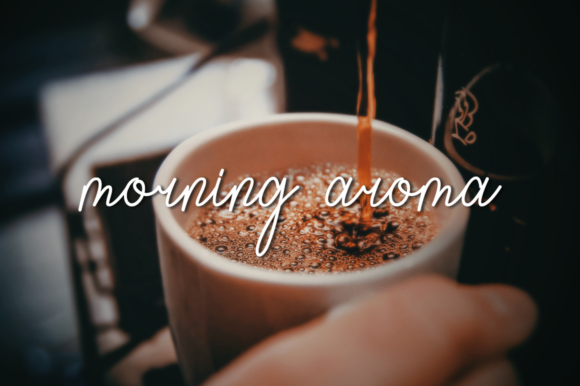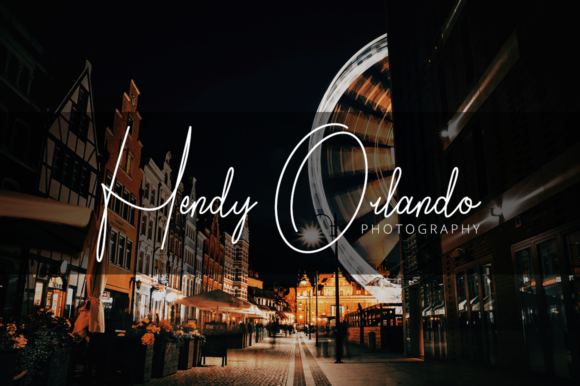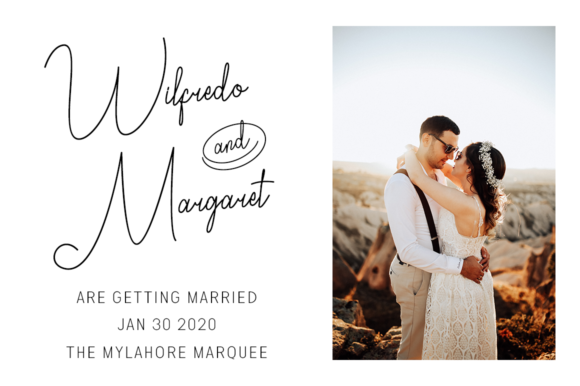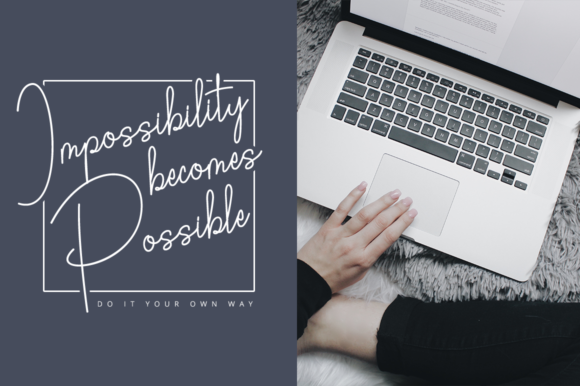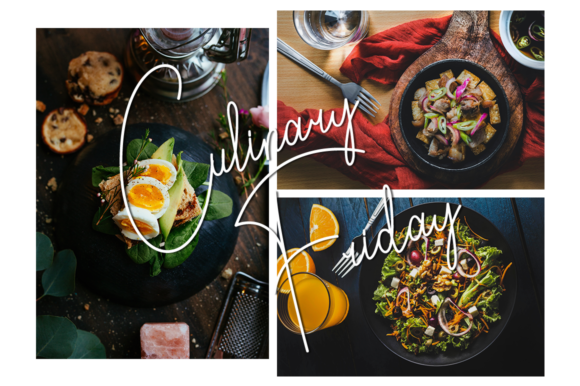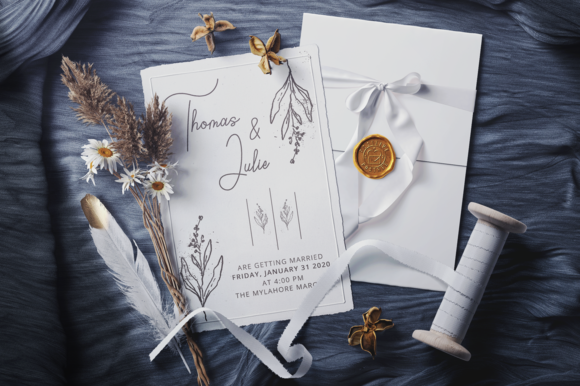
Bordershine Font: Elevate Your Arts & Crafts Projects with Elegant Calligraphy
In the world of arts and crafts, the right font can make all the difference in elevating your projects from ordinary to extraordinary. For those seeking a touch of sophistication and elegance, the Bordershine font is an excellent choice. This beautiful script updates classic calligraphy with a simple and elegant twist, making it the ideal addition to any crafty endeavor.
What is Bordershine Font?
Bordershine font is a stunning script typeface that brings a new level of refinement to traditional calligraphy. Its elegant strokes and flowing lines create a sense of luxury and sophistication, perfect for adding a fancy feel to various arts and crafts projects. Whether you’re working on wedding invitations, scrapbooking, or any other creative endeavor, Bordershine font is sure to impress.
Key Features of Bordershine Font
- Elegant Calligraphy: Bordershine font boasts beautiful, flowing lines that evoke a sense of classic calligraphy with a modern twist.
- Simple yet Sophisticated: The font’s simplicity is its greatest strength, making it versatile and easy to use in various design contexts.
- Perfect for Arts & Crafts: Bordershine font is specifically designed for crafters and designers looking to add a touch of elegance to their projects.
- Highly Versatile: This font can be used for a wide range of applications, from digital designs to print materials.
How to Use Bordershine Font in Your Projects
Using Bordershine font in your arts and crafts projects is incredibly straightforward. Here are a few ideas to get you started:
- Wedding Invitations: Add a touch of sophistication to your wedding stationery with Bordershine font.
- Scrapbooking: Use Bordershine font to add captions or journaling to your scrapbook pages, giving them a personal and elegant touch.
- DIY Cards: Create beautiful greeting cards for any occasion with Bordershine font as the focal point.
- Digital Designs: Incorporate Bordershine font into your digital designs, such as social media graphics or blog headers, for a refined look.
Tips for Getting the Most Out of Bordershine Font
To truly make Bordershine font shine in your projects, consider the following tips:
- Pair with Complementary Fonts: Combine Bordershine font with simpler fonts to create visual interest and hierarchy in your designs.
- Experiment with Colors: While Bordershine font looks stunning in traditional calligraphy colors, don’t be afraid to experiment with different hues to match your project’s theme.
- Play with Sizes: Use Bordershine font in various sizes to create emphasis and add depth to your designs.
Bordershine font is a game-changer for designers and crafters looking to add a touch of elegance and sophistication to their projects. With its simple yet refined calligraphy style, this font is sure to become a staple in your creative toolkit. Whether you’re working on a wedding invitation, scrapbook page, or digital design, Bordershine font is the perfect choice for adding a fancy feel that will leave a lasting impression.